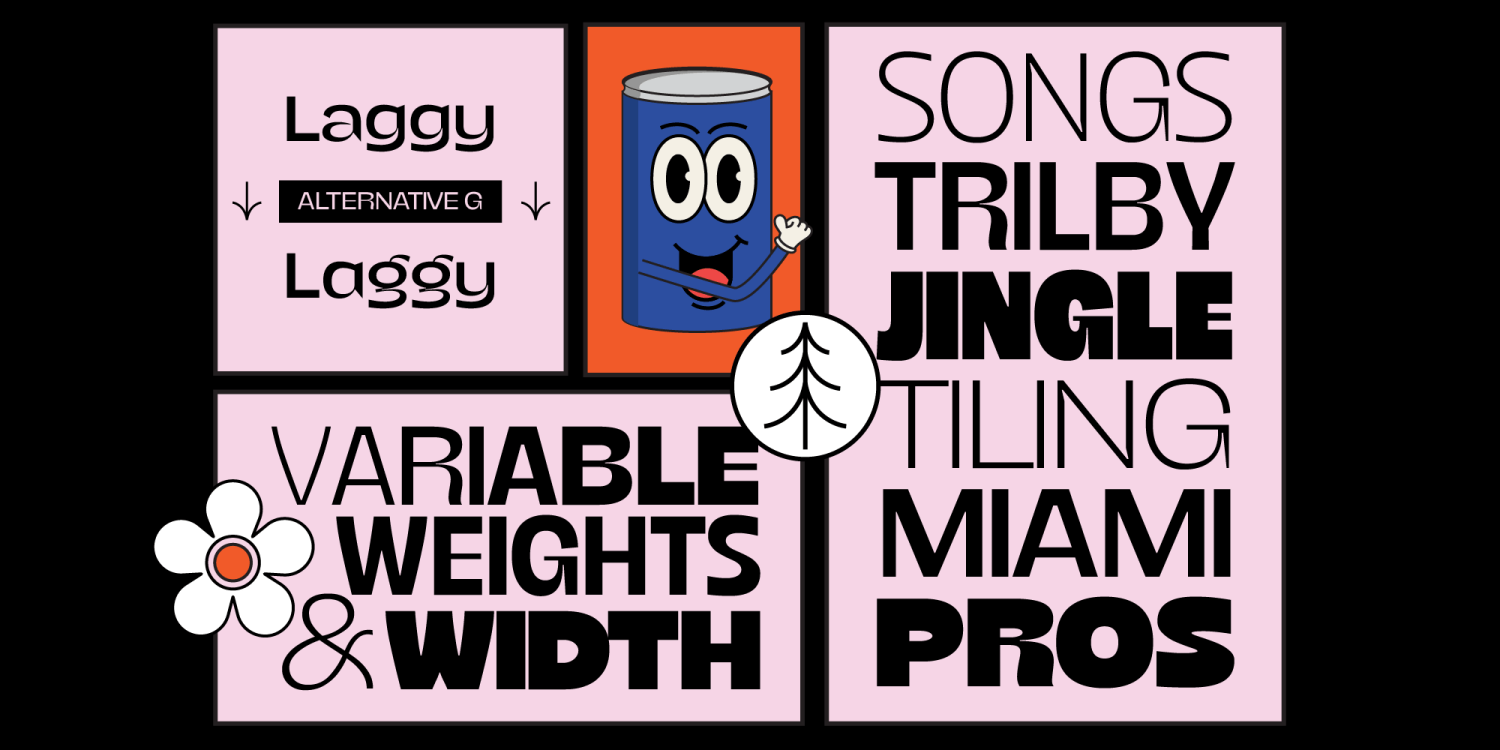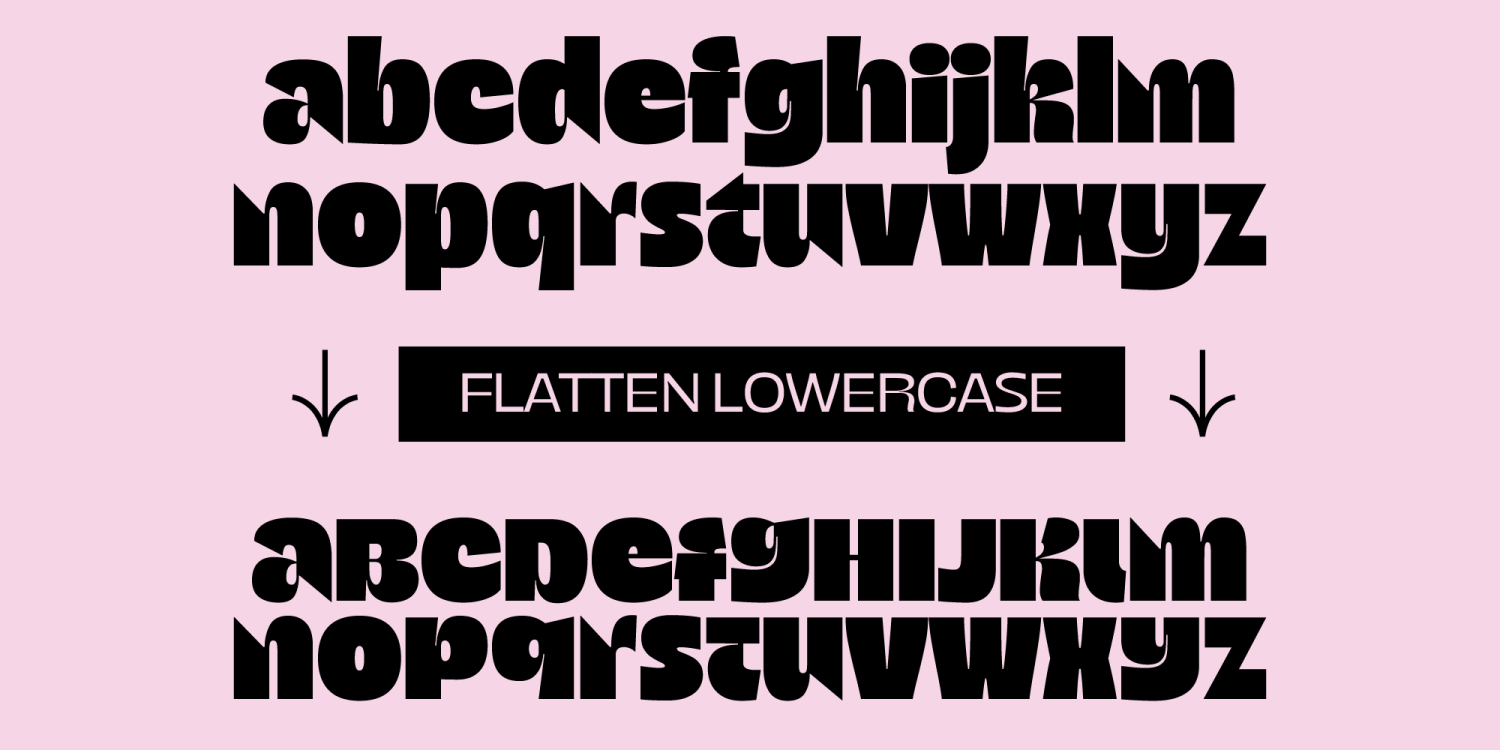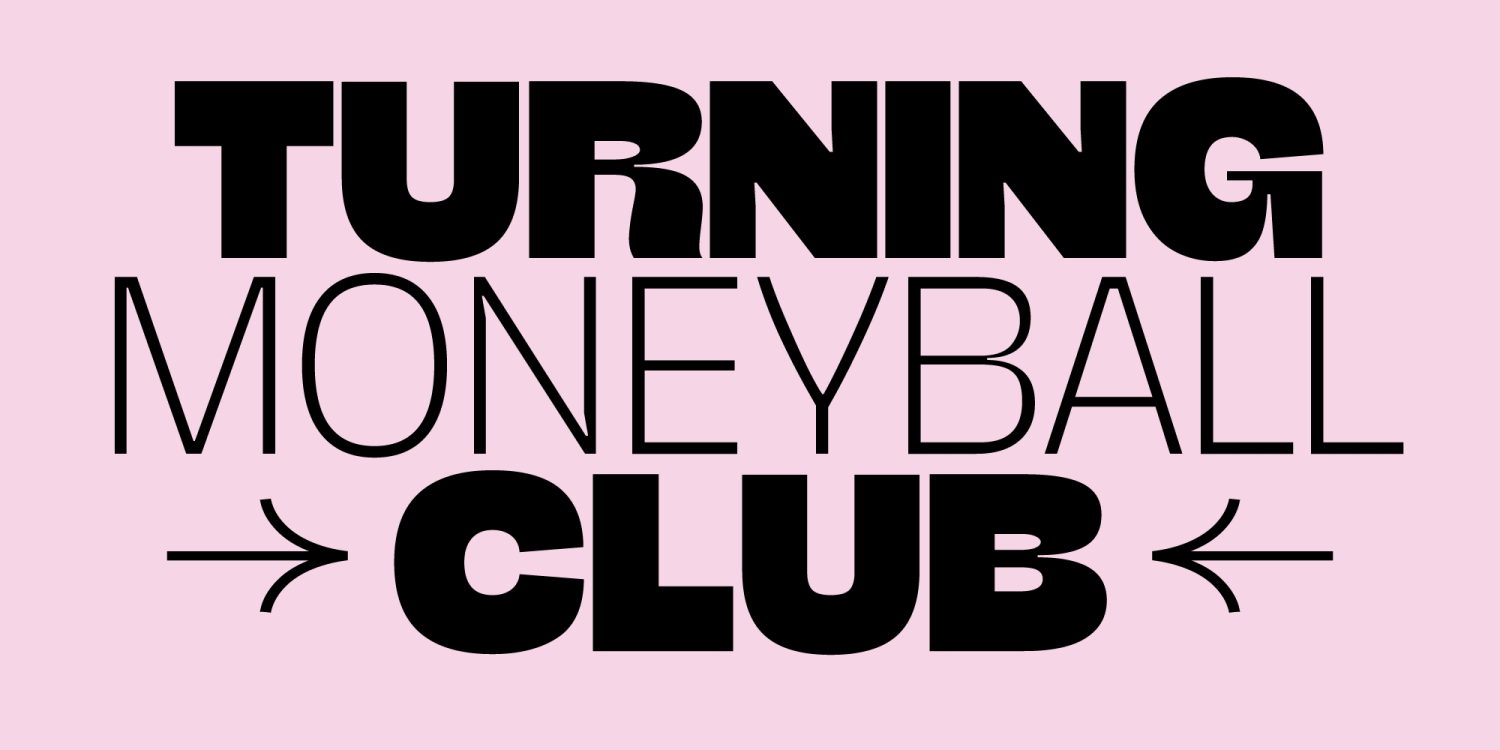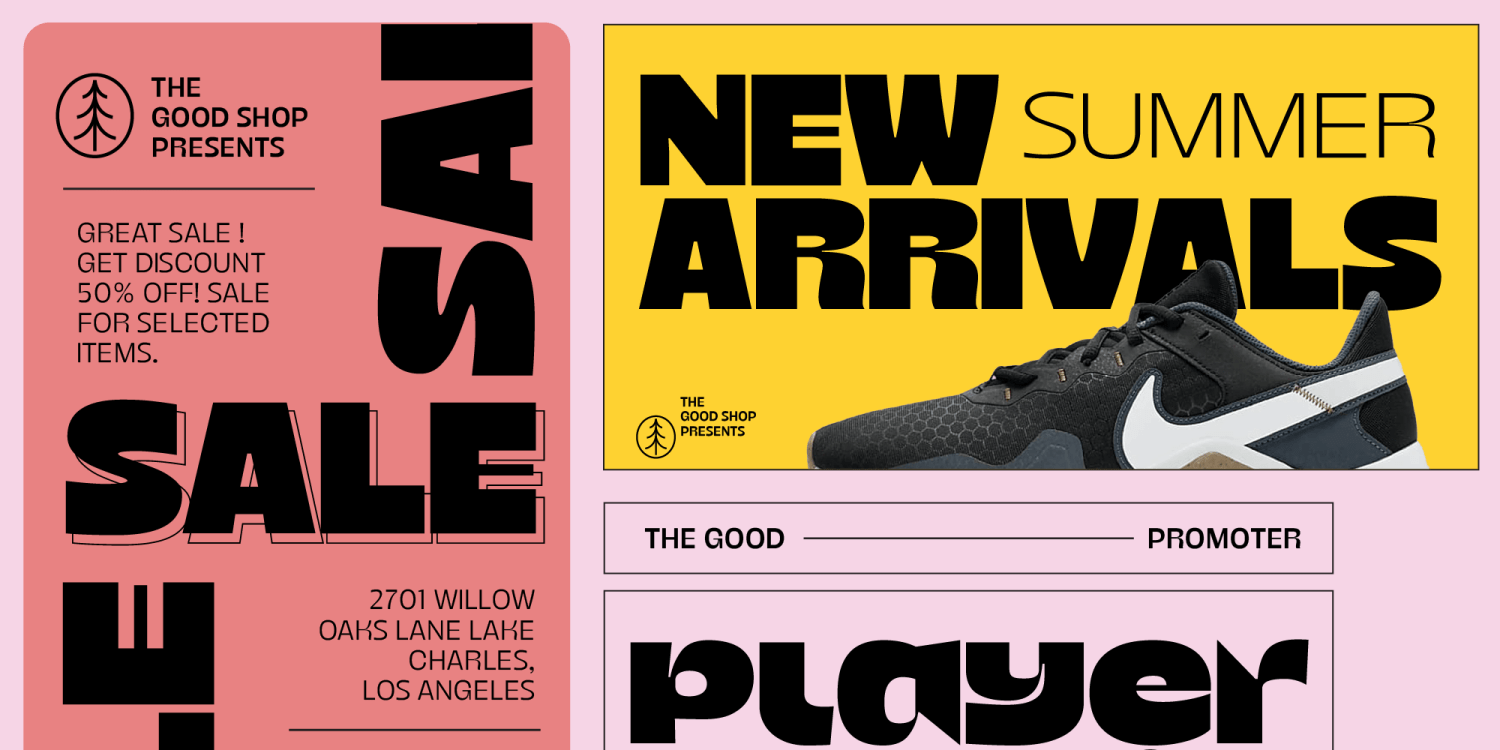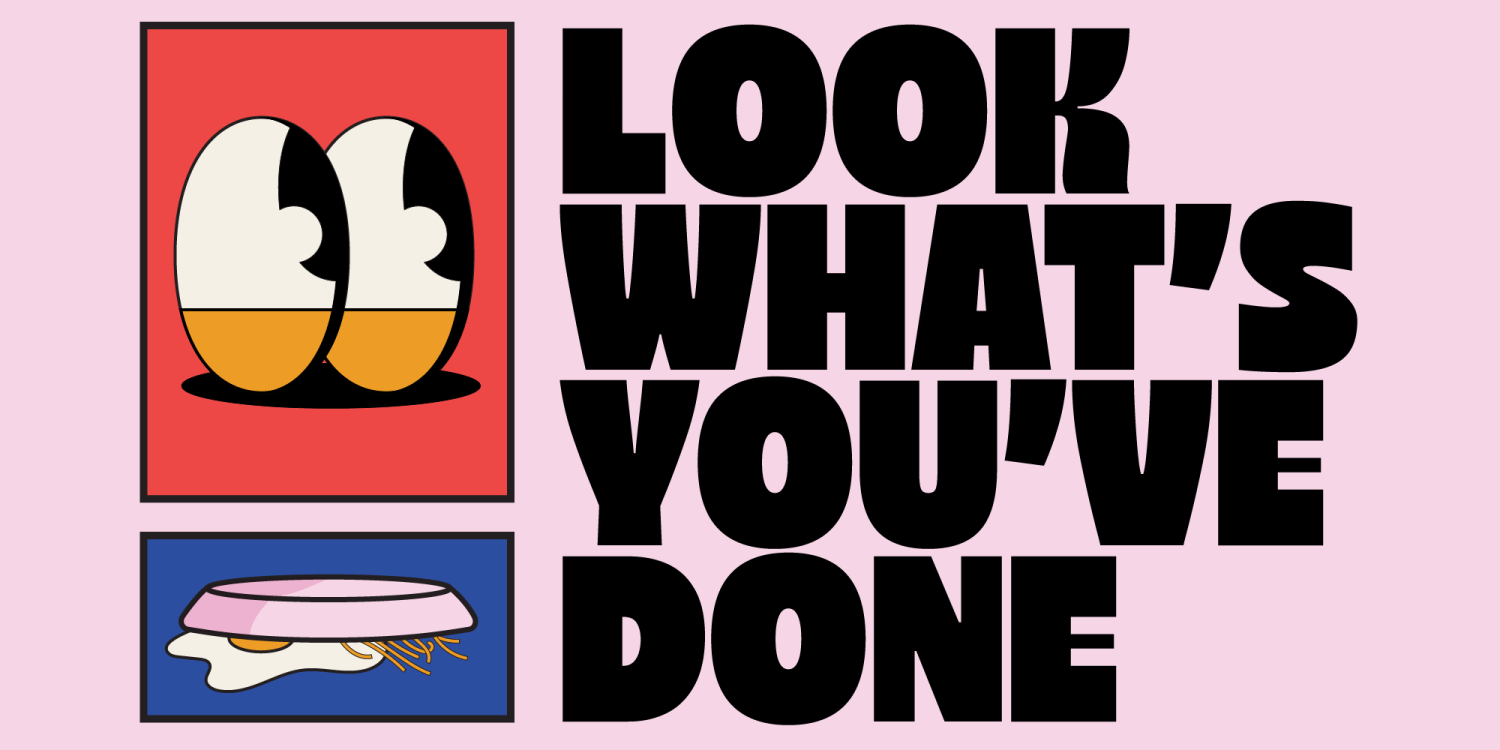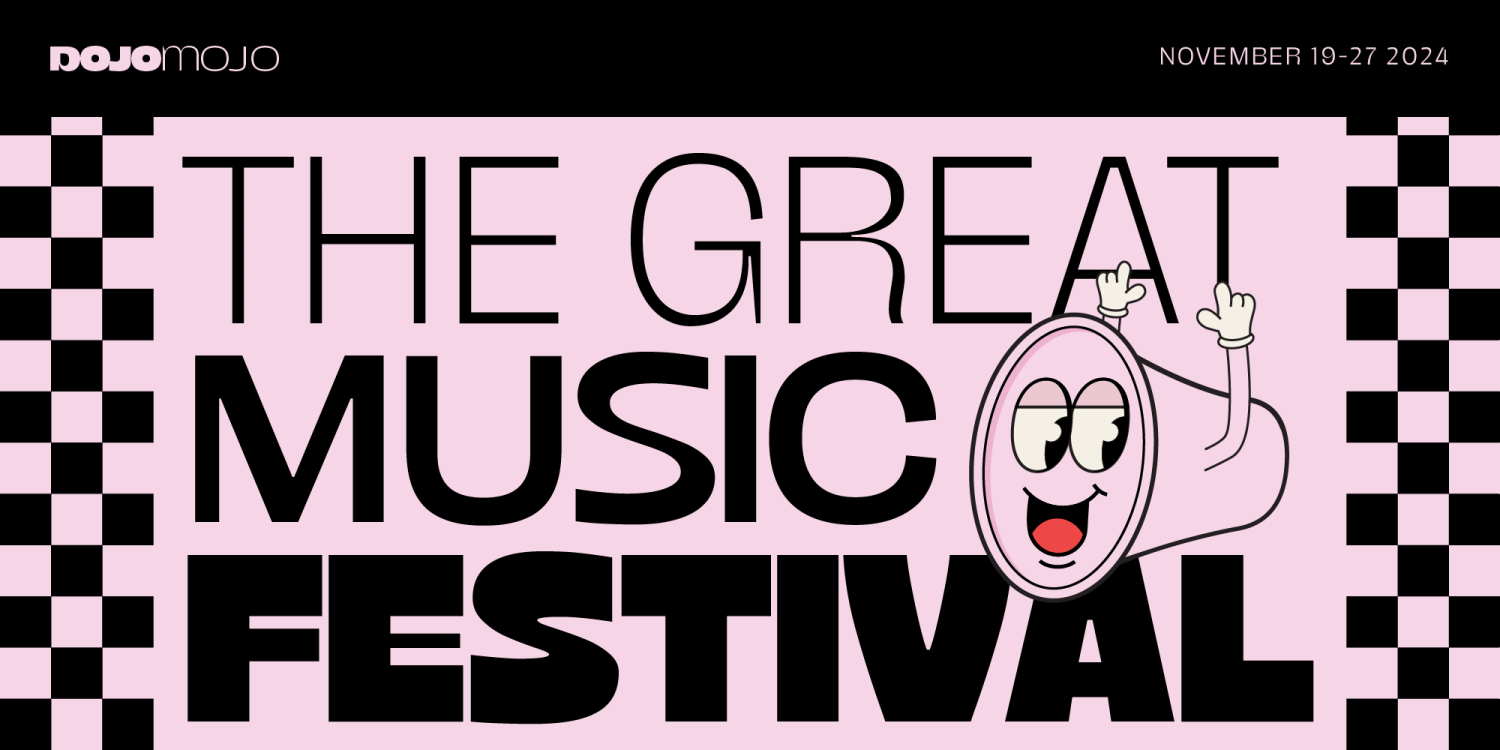
Introducing Gango, the ultimate Variable Font that combines sleek modernity with a playful pop style. This versatile typeface is designed to meet all your creative needs with its ten unique weights, ranging from the delicate Thin and Extra Light to the…